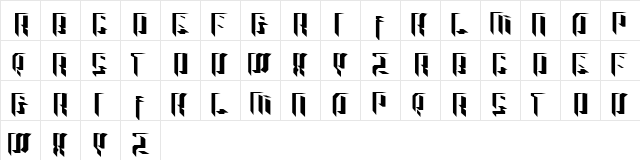
Raver Kids Regular
Design Context for Raver Kids Typeface
Raver Kids has an approachable, lighthearted character — its loose, expressive forms are well-suited to children's content, casual branding, and fun-first design.
Font Pairing: Pairs well with a rounded or humanist sans for body copy, maintaining the friendly tone without relying on Raver Kids to carry extended reading.
Pro Tip: Avoid using Raver Kids for long passages of text — it works best for headlines, labels, and short calls to action.